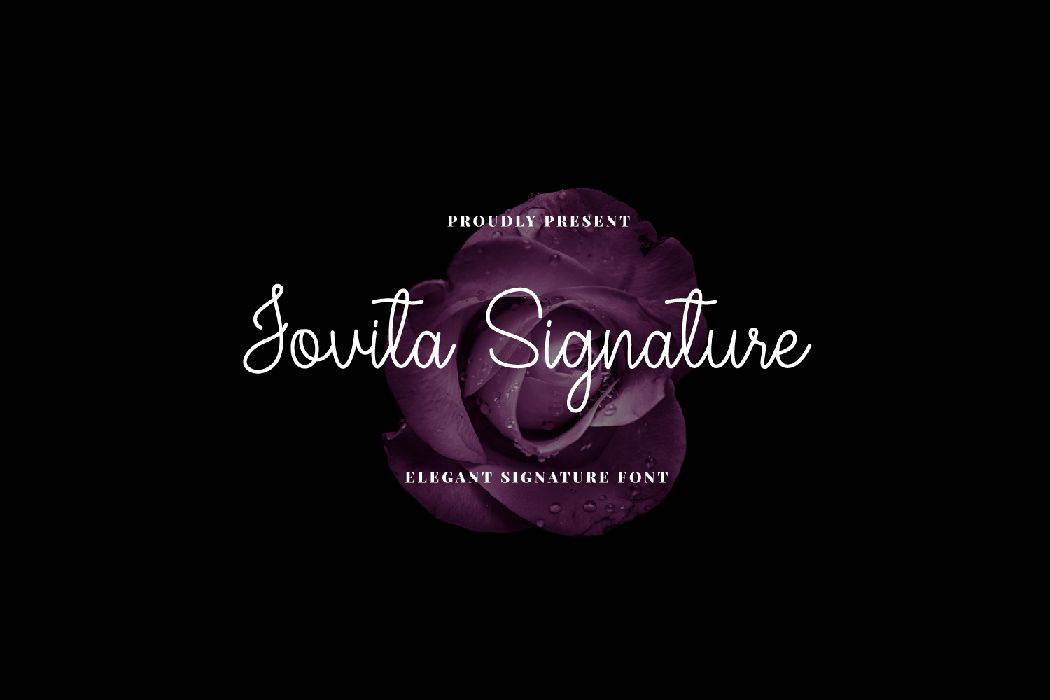
Jovita Signature Font is a delicate, handwritten script with a light and airy feel, featuring smooth, flowing lines and slender strokes that mimic elegant penmanship. Its refined yet casual style lends a personal, approachable touch, making it ideal for branding, invitations, and creative designs that seek a warm, sophisticated look. This font works beautifully in logos, social media graphics, and packaging where a graceful, signature-inspired appearance is desired.
Jovita Signature Font
About Jovita Signature Font